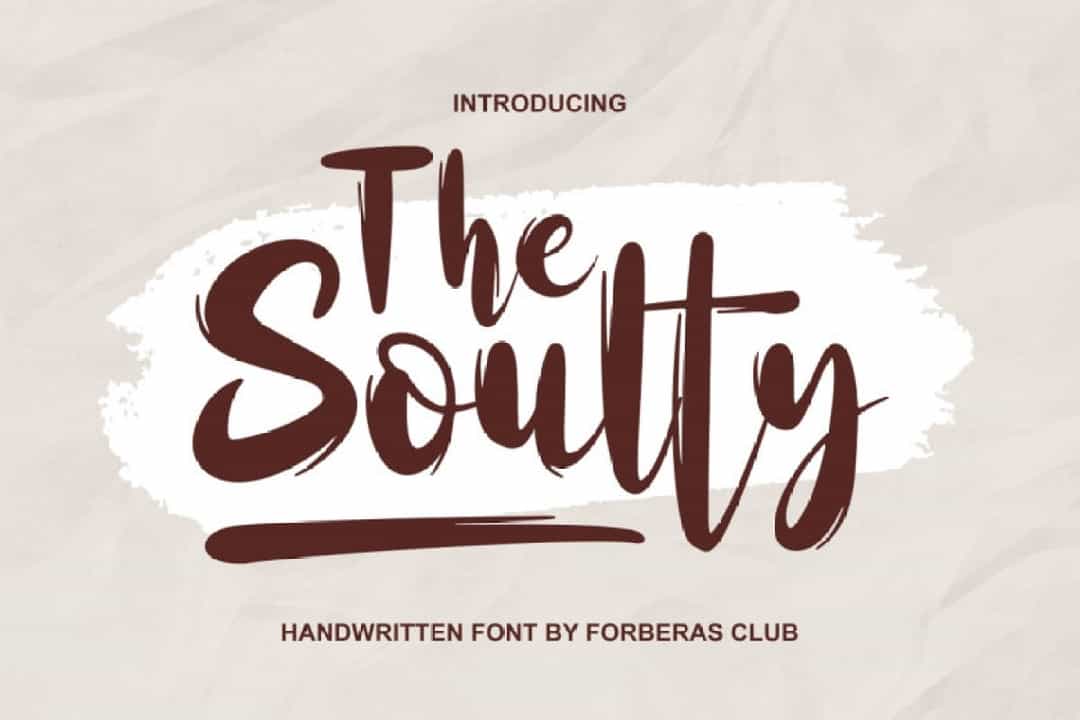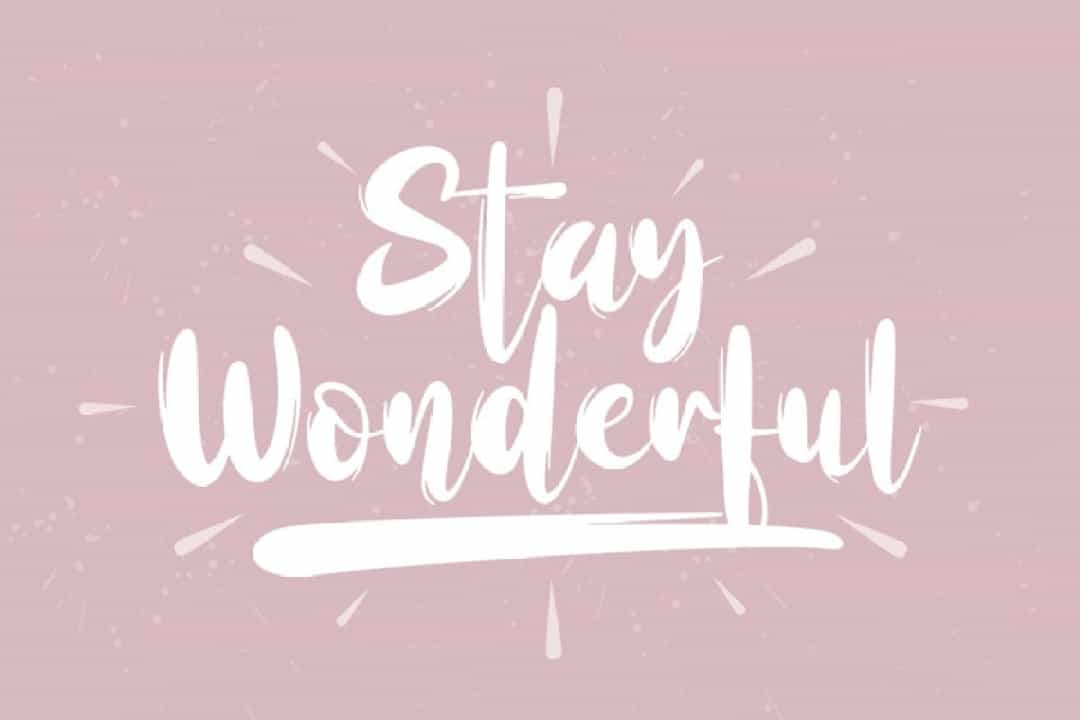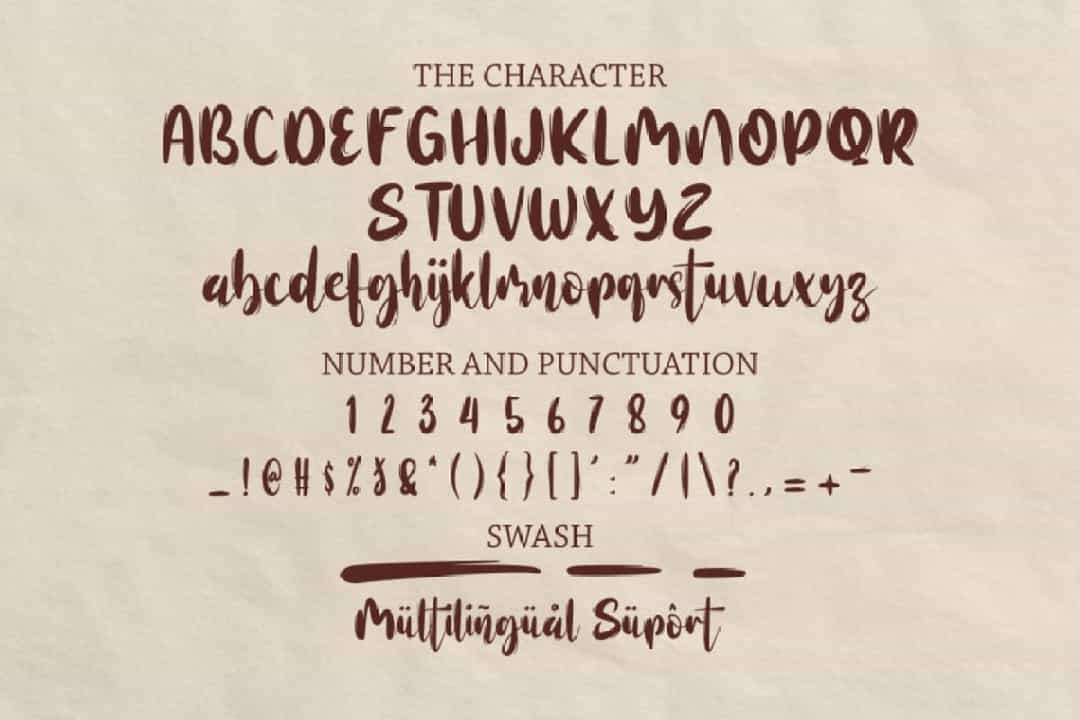
Discover The Soulty Font, part of the Brush Handwritten collection—a versatile and unique font perfect for adding a personal touch to your projects. Download it for free and enjoy crafting designs with style, from invitations to social media posts. This font is available exclusively for personal use, giving you the freedom to create without limits. Unlock your creativity with The Soulty Font today!
Hand-crafted font that will draw in attention and elevate your brand. Your projects will bloom when incorporating this exquisite font. Be it advertising, headings, logos or printed quotes; packaging; social media brands – each letter features its own distinct and elegant appearance to make your designs come alive!